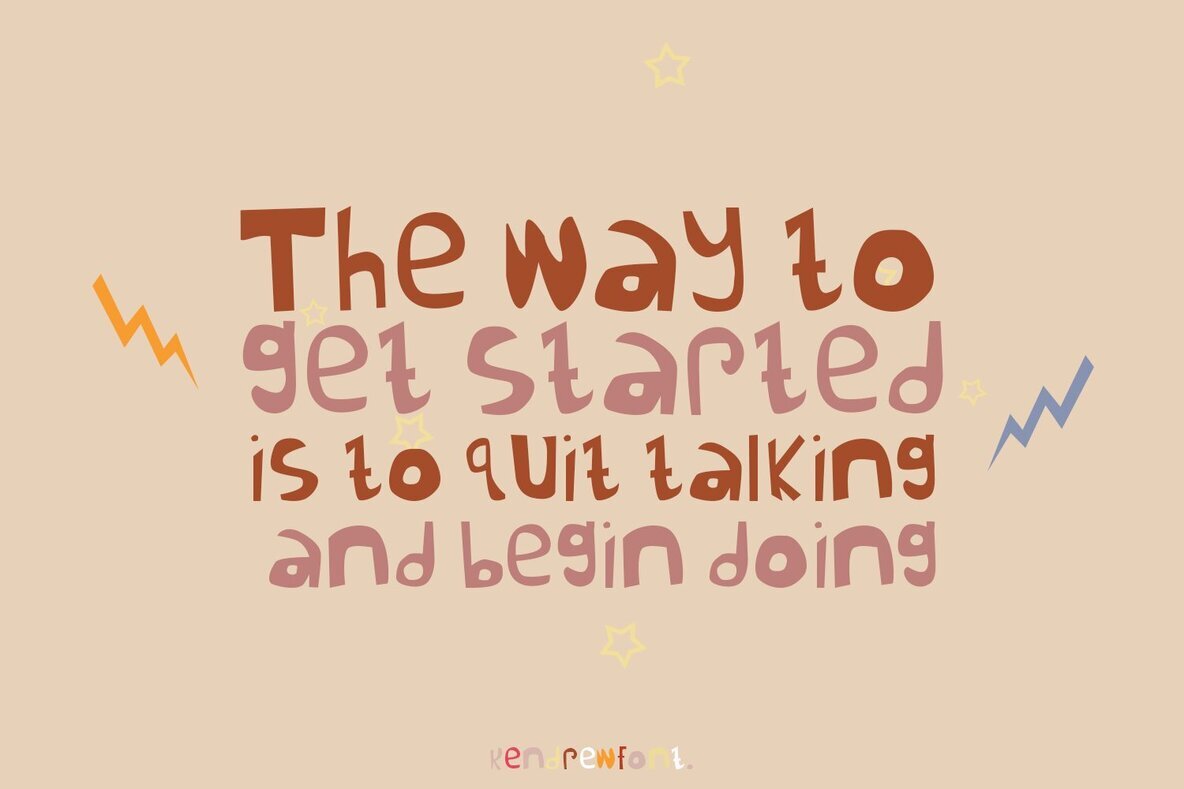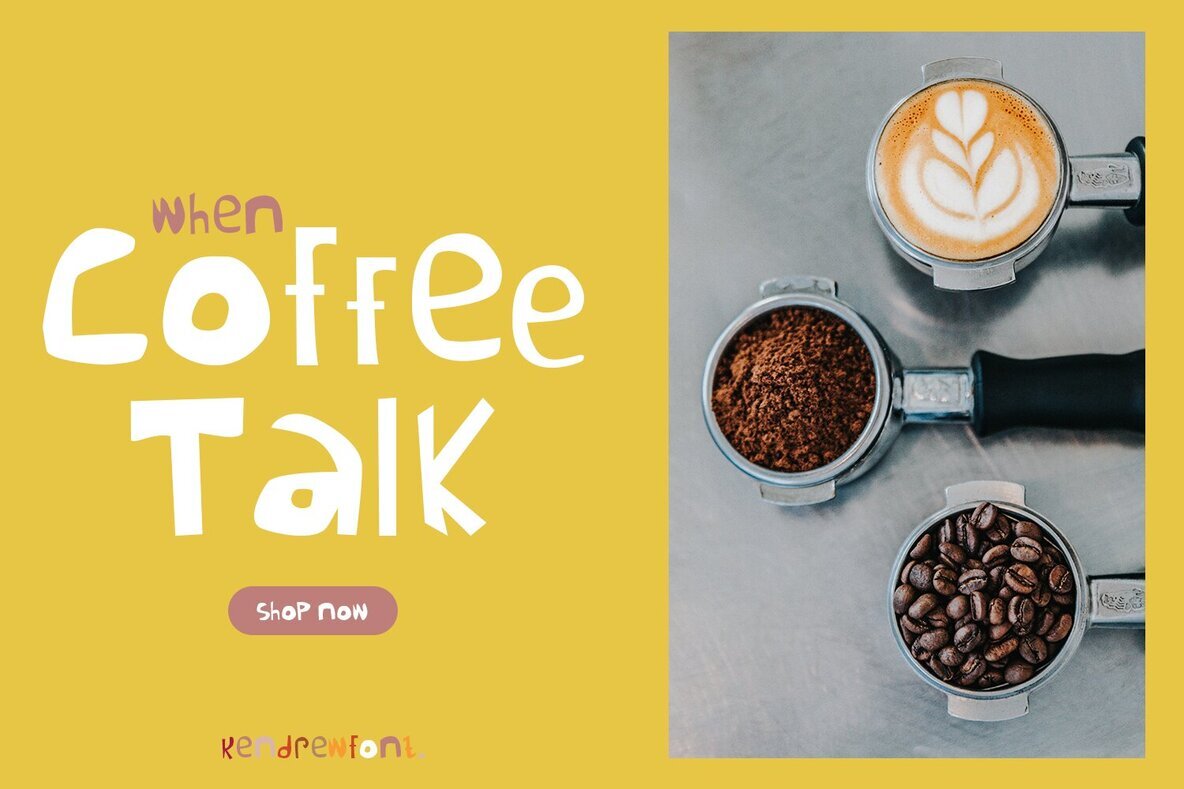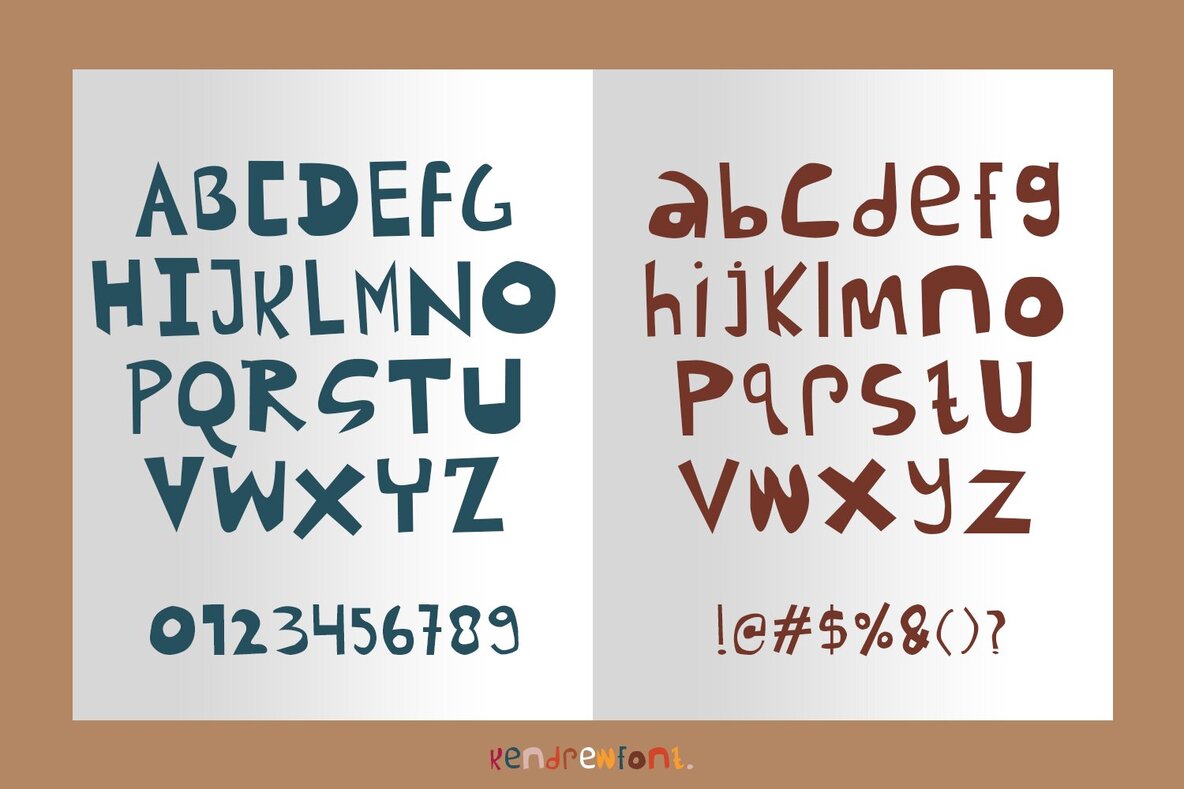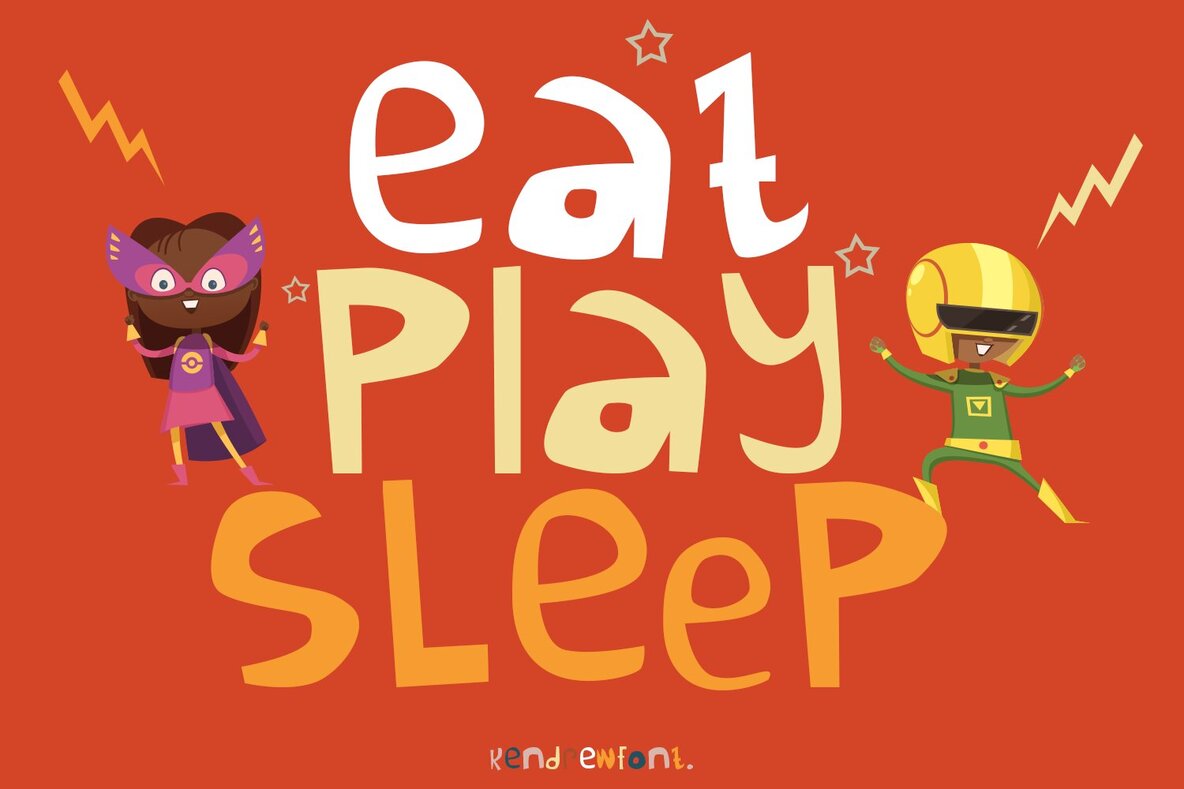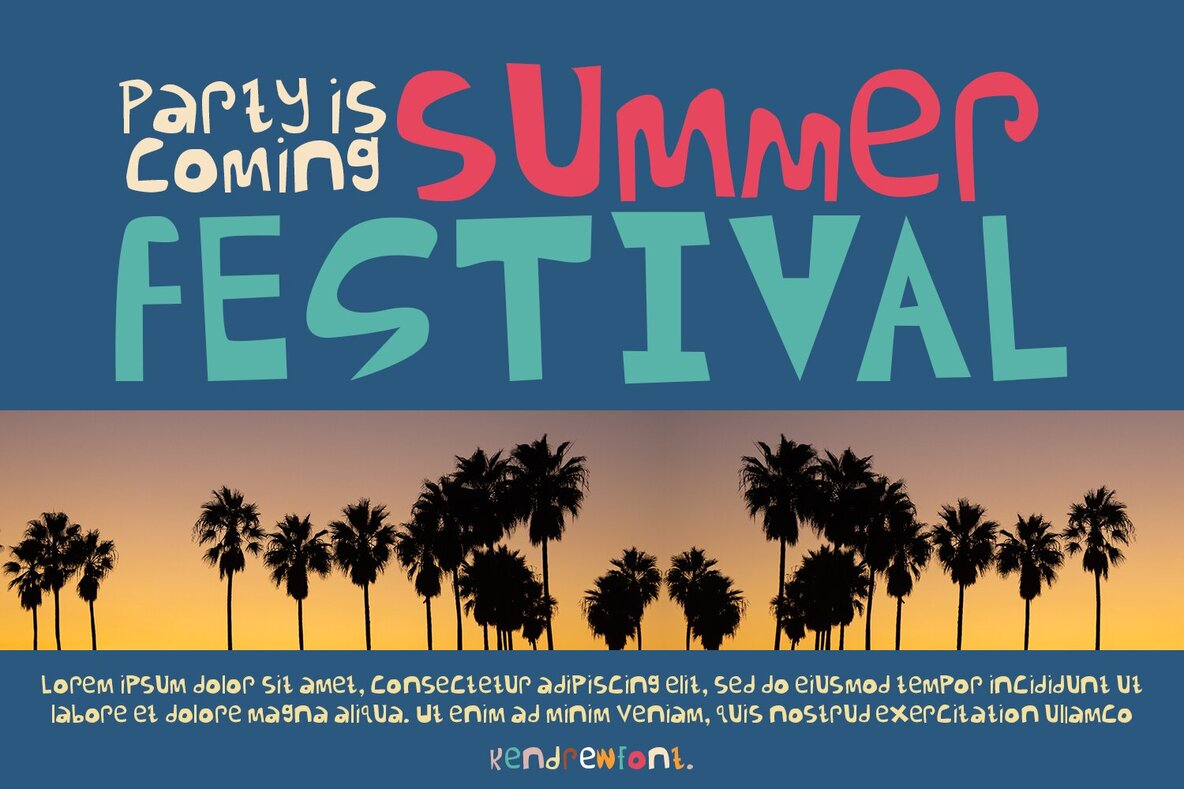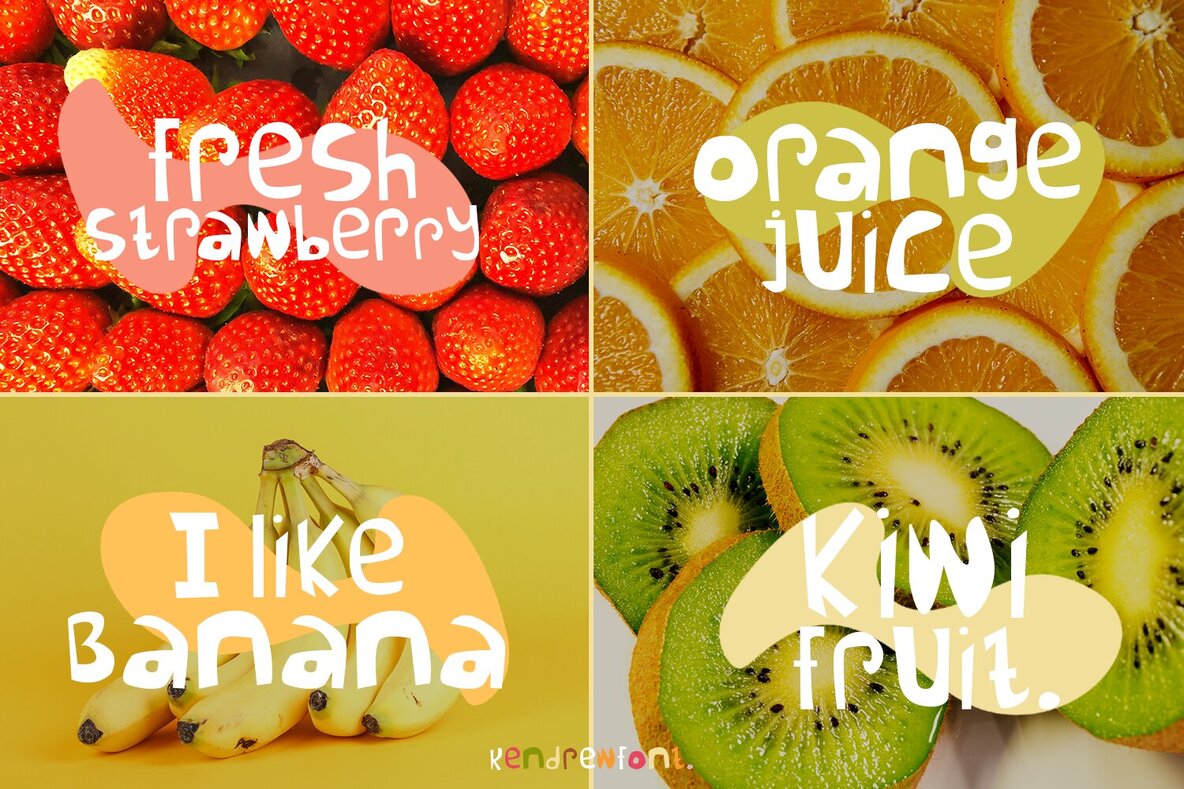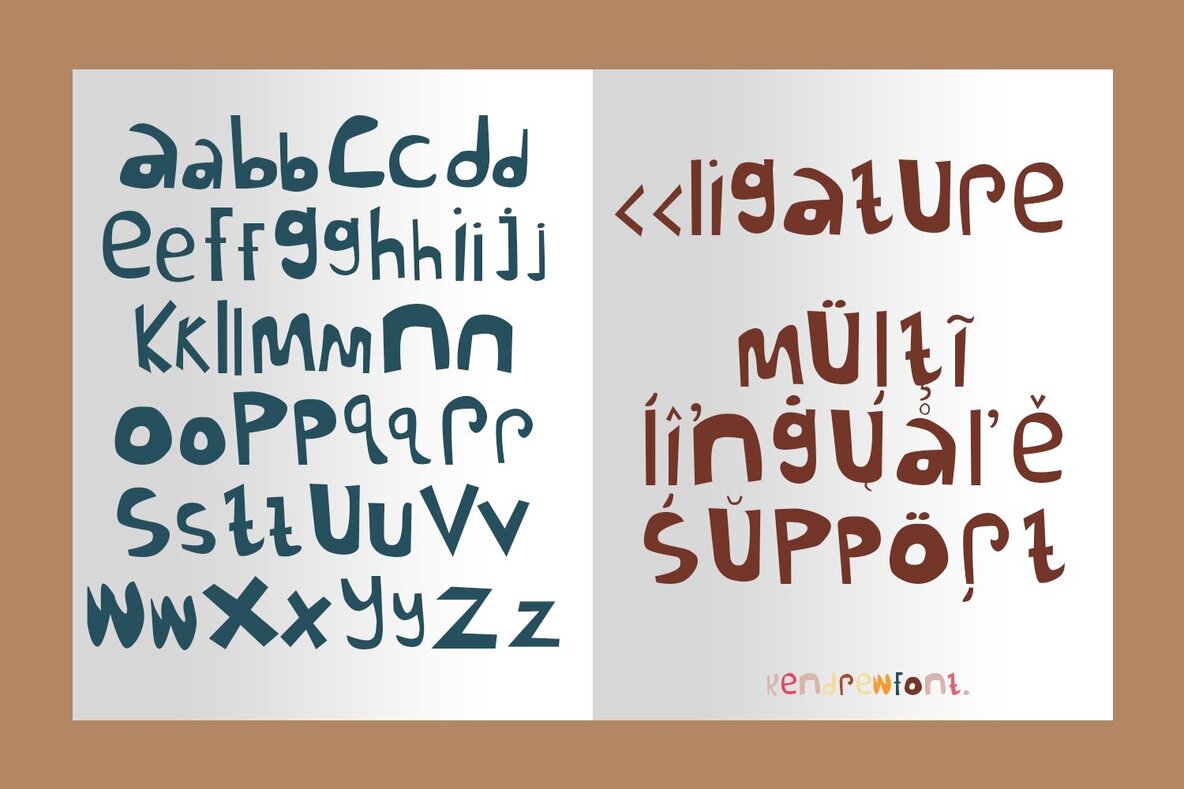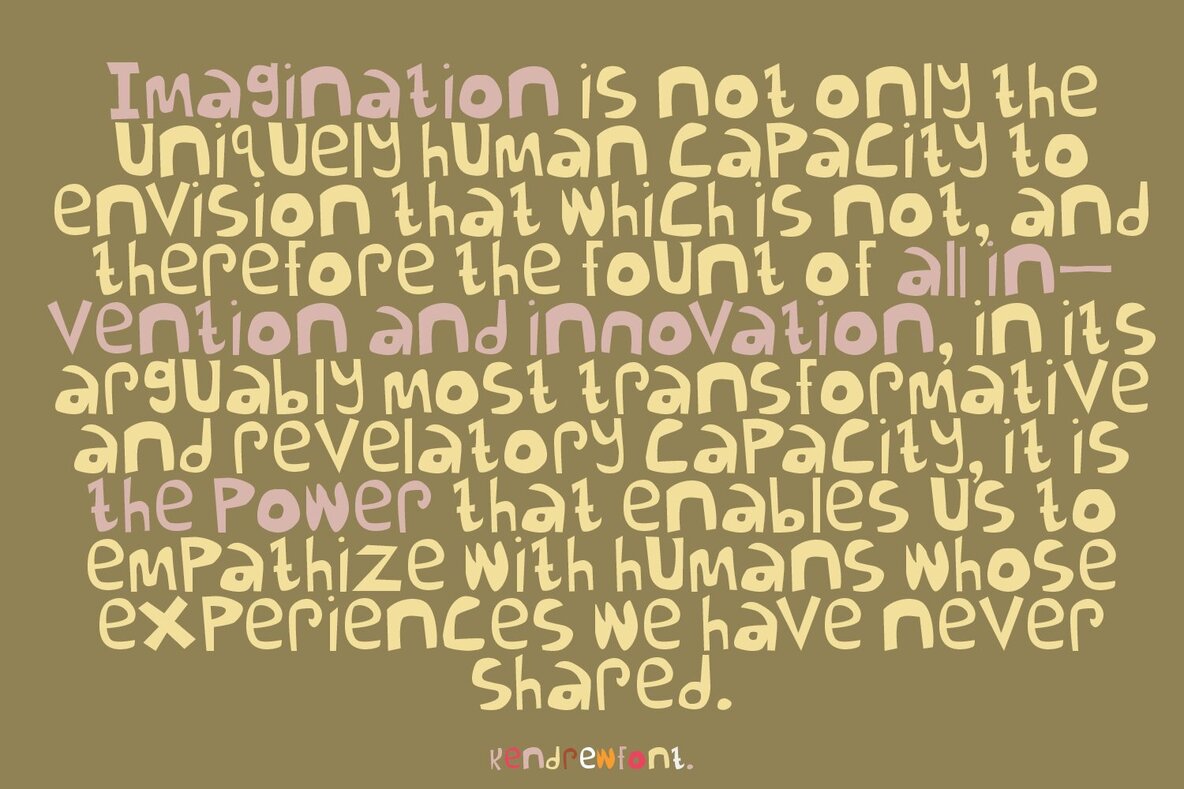
Kendrew: Playful Handwritten Font for Kids
Kendrew offers a joyful handwritten style, ideal for adding a touch of whimsy to children's books, branding elements, and packaging designs. Its versatility extends to invitations, quotes, and various apparel and marketing materials, making it a dynamic choice for creative projects.
• Uppercase & Lowercase – Provides complete lettering flexibility.
• Numbers & Symbols – Ensures comprehensive design options.
• International Glyphs – Facilitates global usage.
• Multilingual Support – Expands accessibility across languages.